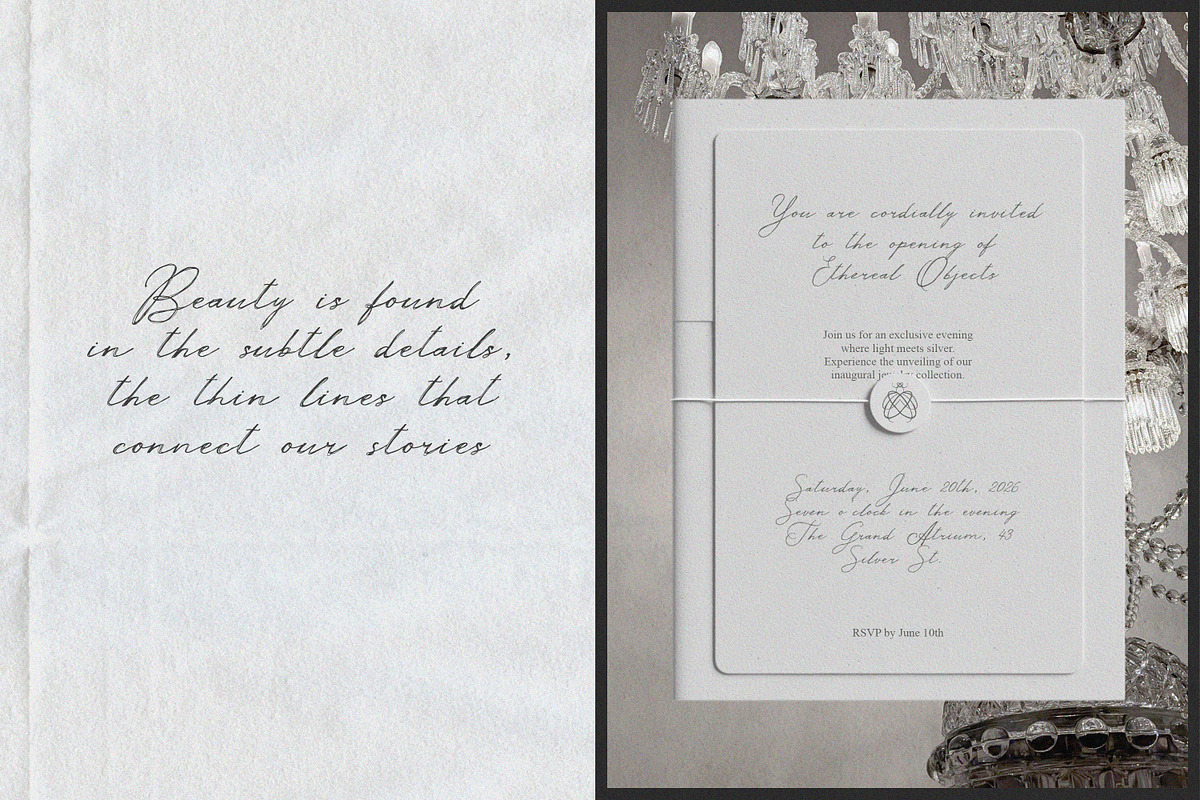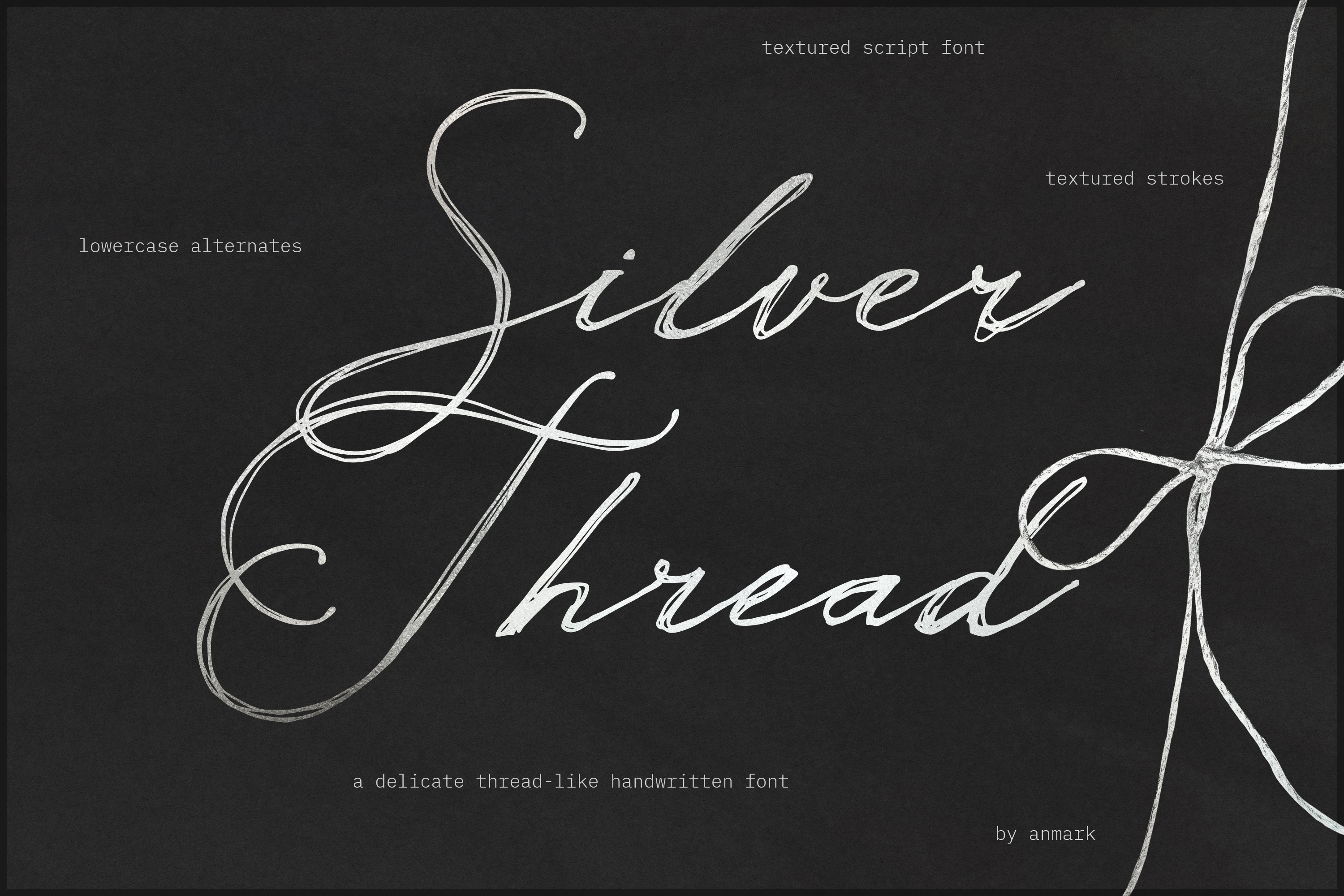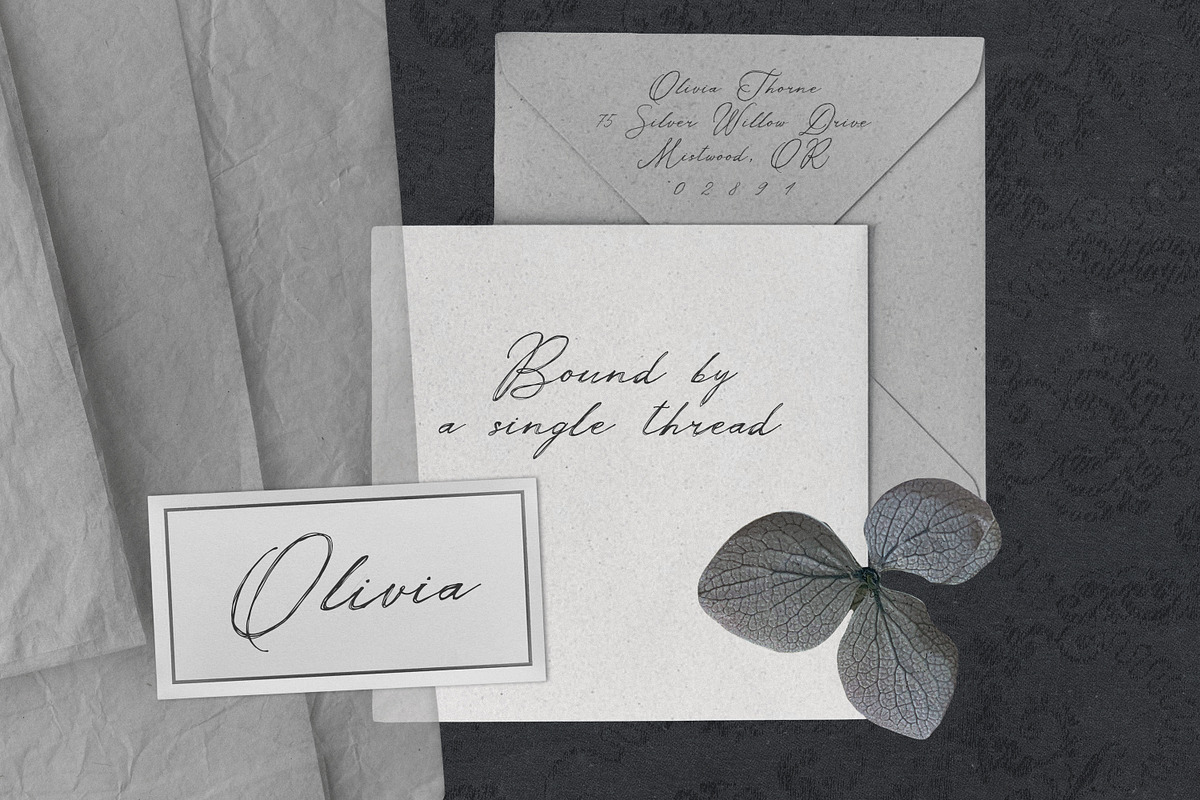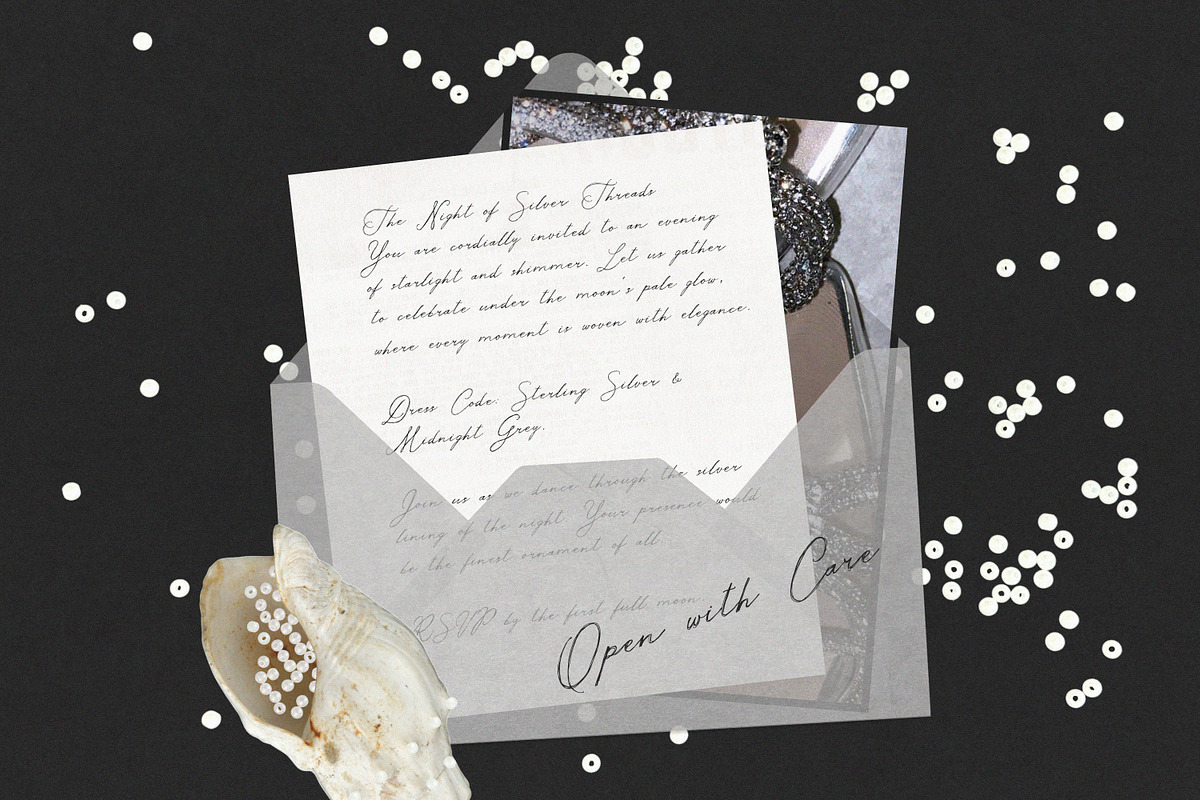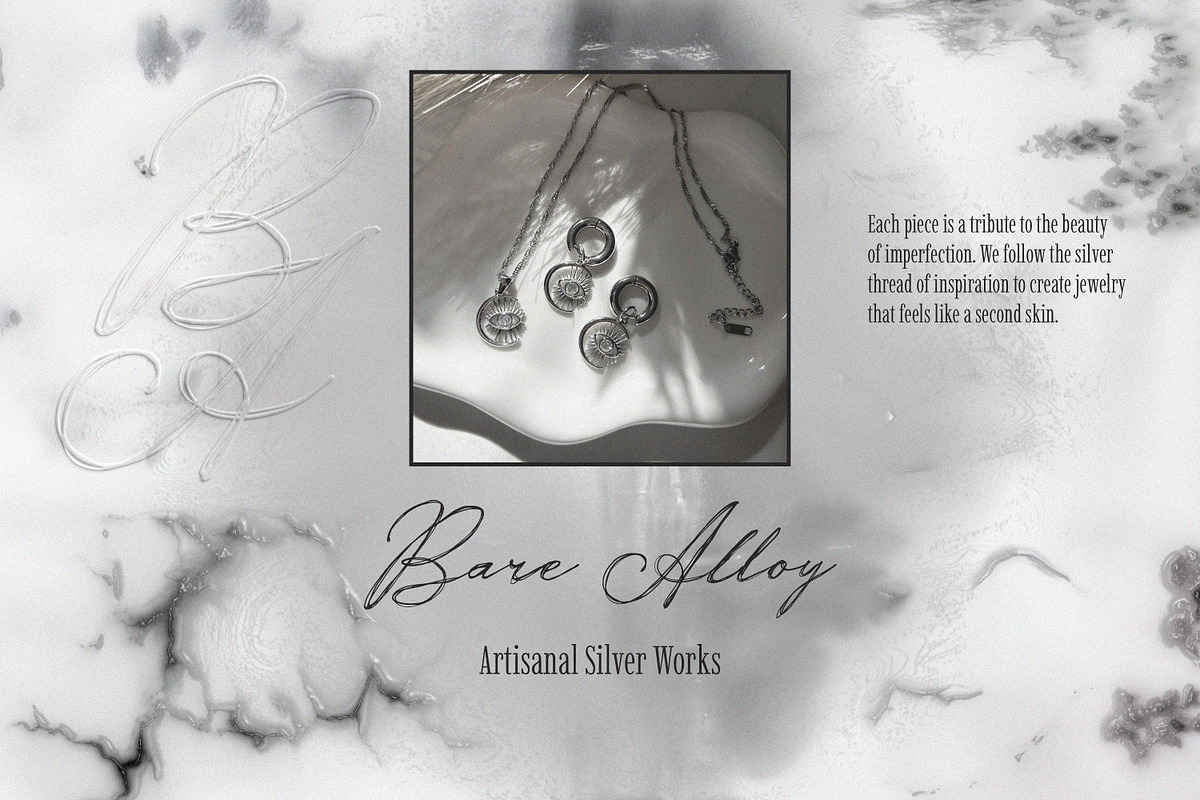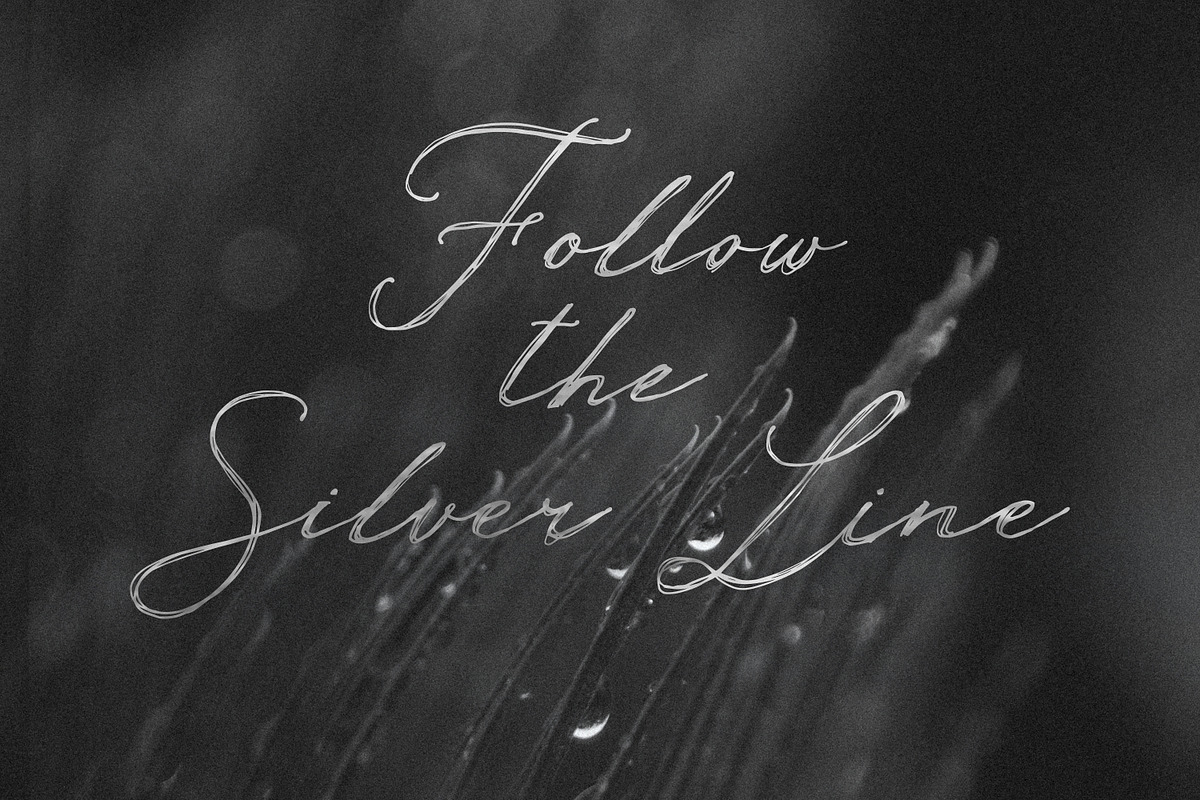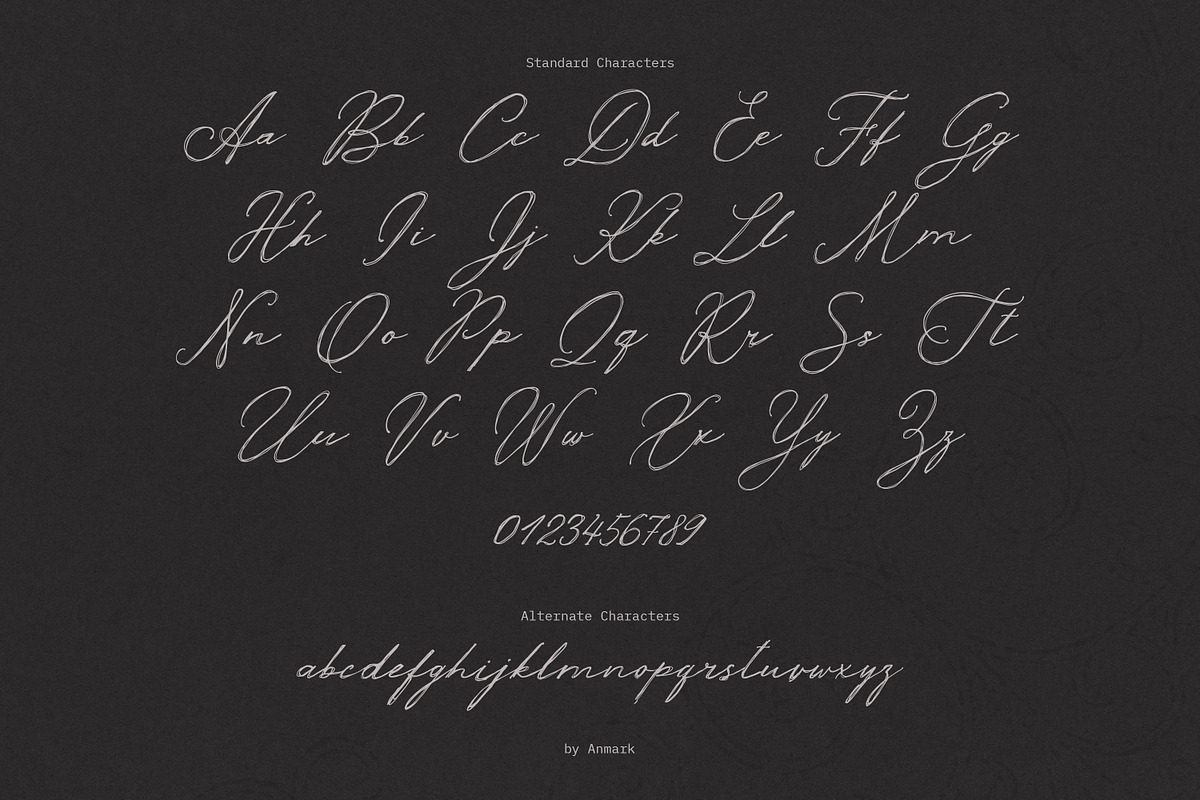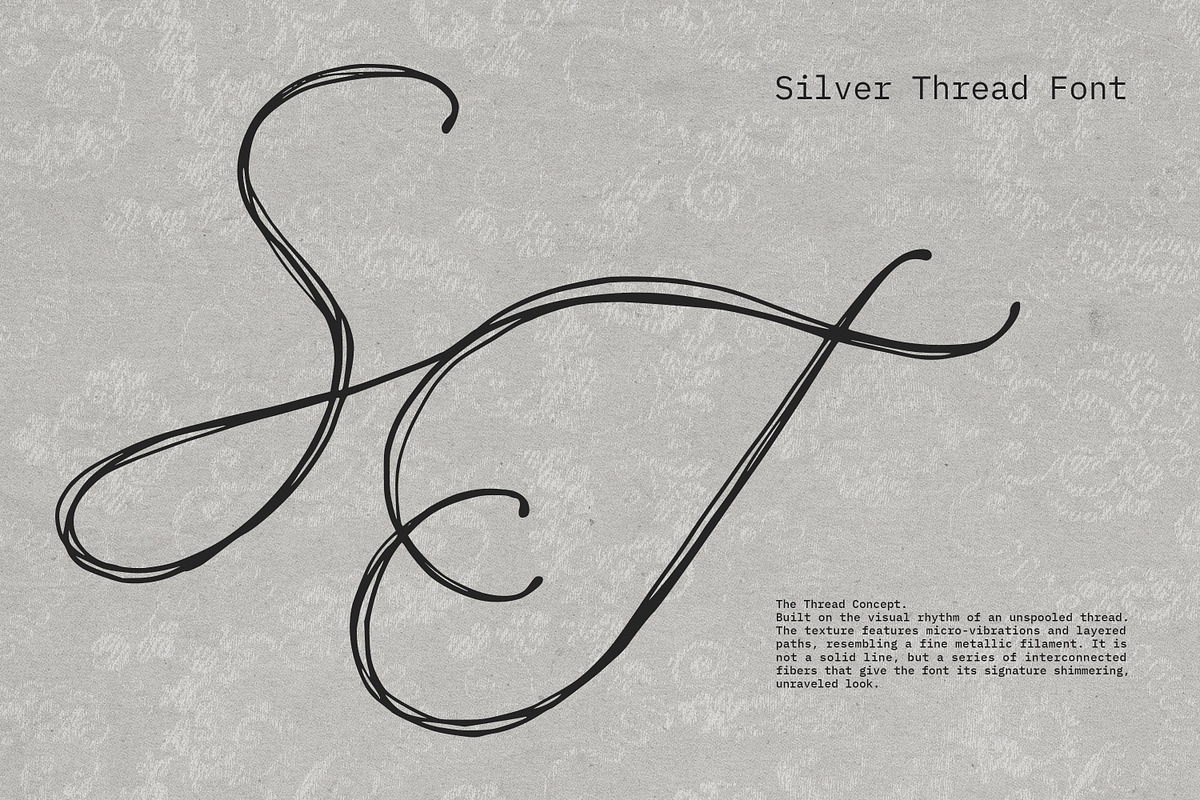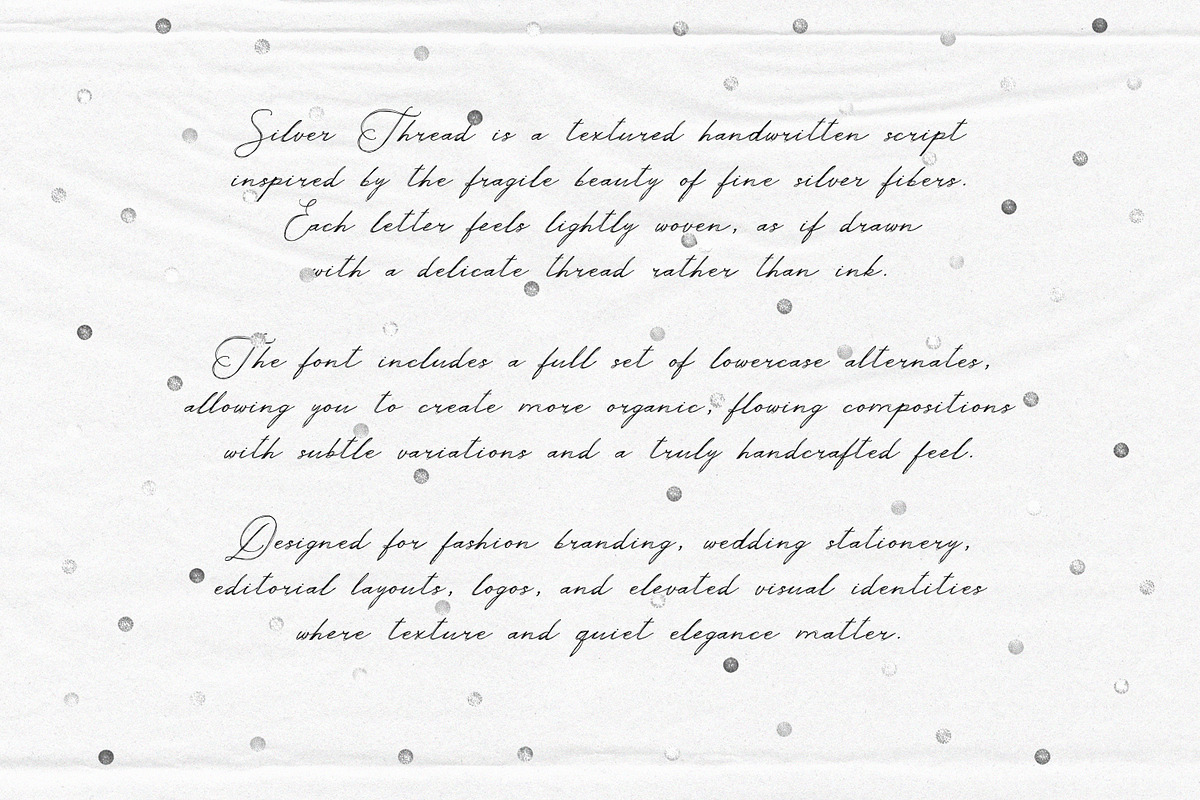
Silver Thread Textured Script Font
Silver Thread is a textured handwritten calligraphy font shaped by fine, thread-like strokes. The surface carries a subtle woven grain that feels tactile and intentional. Lines shift in pressure and direction, creating movement that resembles an unwound ball of thread settling into form.
The texture adds quiet depth without overpowering the letterforms. Each character remains refined and airy while retaining a natural, handcrafted rhythm.
The font includes a full set of lowercase alternates, allowing compositions to feel varied, fluid, and less repetitive.
Silver Thread works beautifully for fashion branding, jewellery labels, wedding stationery, editorial layouts, logos, packaging, beauty campaigns, and elevated visual identities where texture and nuance matter.